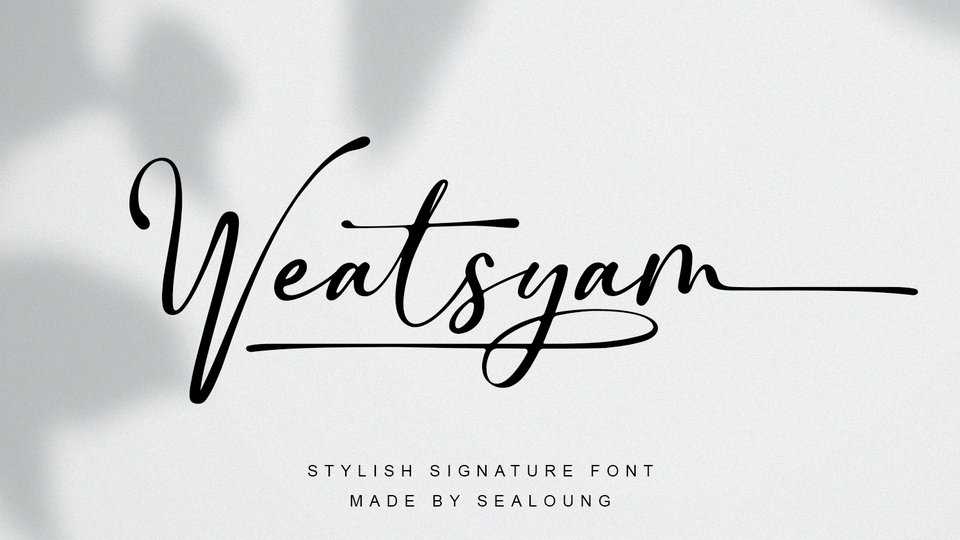
Download Weatsyam font, a unique and elegant handwritten typeface. Weatsyam looks beautiful on a variety of designs requiring a personalized style, such as wedding invitations, greeting cards, logos and so on.
Designer: Sealoung